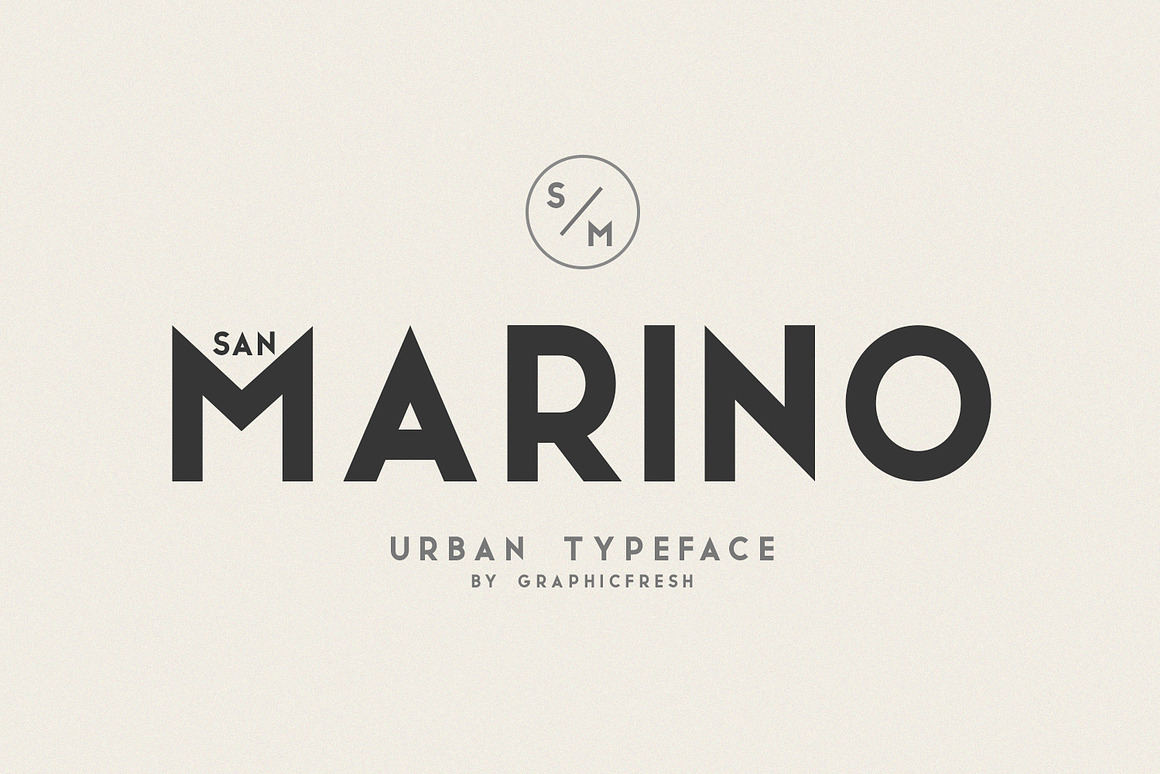
San Marino // Four Font Files
The San Marino // Four Font Files excels in various design applications including Mediterranean-inspired branding, elegant restaurant menus, luxury resort marketing, travel agency materials, wine label designs, boutique hotel signage, culinary magazine layouts, upscale retail packaging, and sophisticated wedding invitations. This versatile typeface collection brings European sophistication to both digital presentations and premium print materials.
What makes San Marino // Four Font Files exciting is its refined Italian-inspired aesthetic that captures the timeless elegance of European typography traditions. The font collection features graceful letterforms with classical proportions and contemporary refinements that create exceptional versatility. Its sophisticated character reflects the charm of Mediterranean coastal towns while delivering modern functionality for diverse design applications.
The San Marino // Four Font Files family includes four distinct variations: Regular, Bold, Light, and Italic styles. Each font file maintains the signature Mediterranean elegance while offering designers complete flexibility for comprehensive brand systems and editorial layouts. The extensive character set supports multiple European languages and includes accent marks, ligatures, stylistic alternates, numerals, and premium punctuation marks.
The technical excellence of San Marino // Four Font Files includes meticulously crafted kerning pairs, advanced OpenType features, and seamless cross-platform performance. Whether you're designing elegant logos or complex editorial layouts, these fonts deliver consistent sophistication. The balanced proportions work beautifully in both display headlines and extended reading applications while maintaining optimal legibility.
Creative agencies appreciate how San Marino // Four Font Files elevates brand communication through its cultured aesthetic. The font collection's European elegance makes it ideal for art galleries, luxury hospitality brands, gourmet food companies, and premium lifestyle businesses seeking to convey sophistication and authenticity. Its classical refinement complements various design styles while establishing distinctive brand personalities.
From intimate menu cards to expansive outdoor advertising, San Marino // Four Font Files maintains its elegant character across all applications. The font collection's sophisticated construction ensures visual refinement in competitive luxury markets while its versatile weights provide comprehensive design solutions, making it an invaluable toolkit for designers creating memorable Mediterranean-inspired brand experiences.